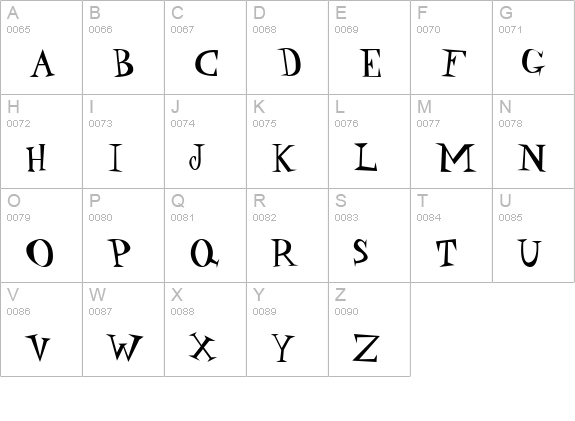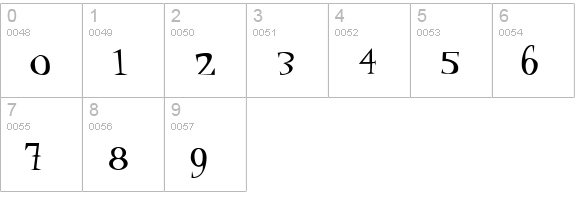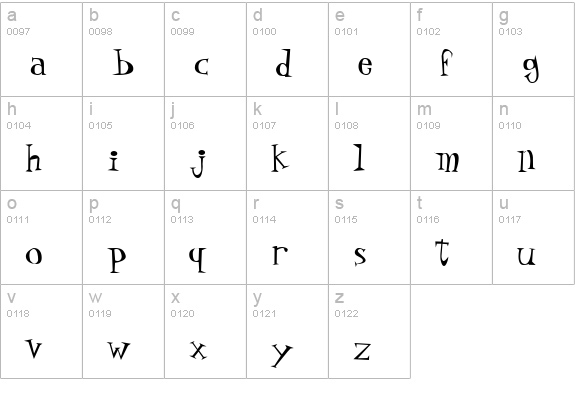
Introducing P22 Daddy O Hip, a font that effortlessly combines retro charm with a modern twist. This typeface is a tribute to the iconic style of the 1950s and 1960s, capturing the essence of the era's vibrant pop culture and sleek design. P22 Daddy O Hip showcases a unique blend of bold and playful letterforms, carefully crafted to evoke a sense of nostalgia while maintaining a contemporary appeal. The rounded edges and exaggerated curves effortlessly exude a sense of fun and energy, making it the perfect choice for projects that aim to stand out and make a statement. Whether you're working on a vintage-inspired poster, a funky album cover, or a retro-themed website, P22 Daddy O Hip is the perfect companion to bring your creative vision to life. Its versatility allows it to seamlessly adapt to various design styles, making it an indispensable tool for designers, artists, and creatives alike. And the best part? P22 Daddy O Hip is completely free! Yes, you read that right. This font is freely available to download at FontsMarket.com, allowing you to add a touch of retro coolness to your projects without breaking the bank. So go ahead, unleash your creativity and let P22 Daddy O Hip be your trusty sidekick in crafting visually stunning designs. With its bold personality, undeniable charm, and the added bonus of being free, P22 Daddy O Hip is a must-have font for anyone looking to add a dose of vintage flair to their work. Download it today at FontsMarket.com and let the creative possibilities unfold!